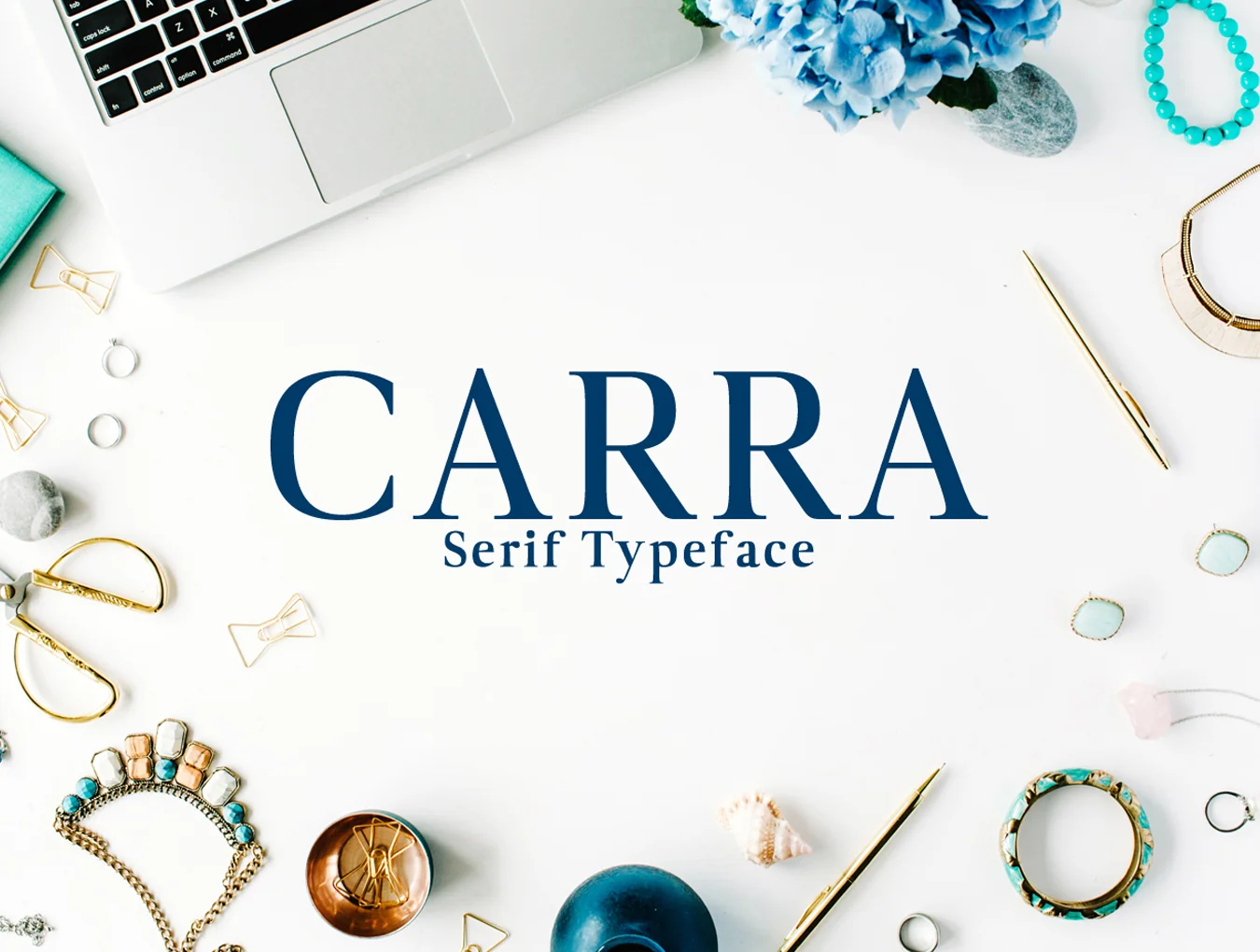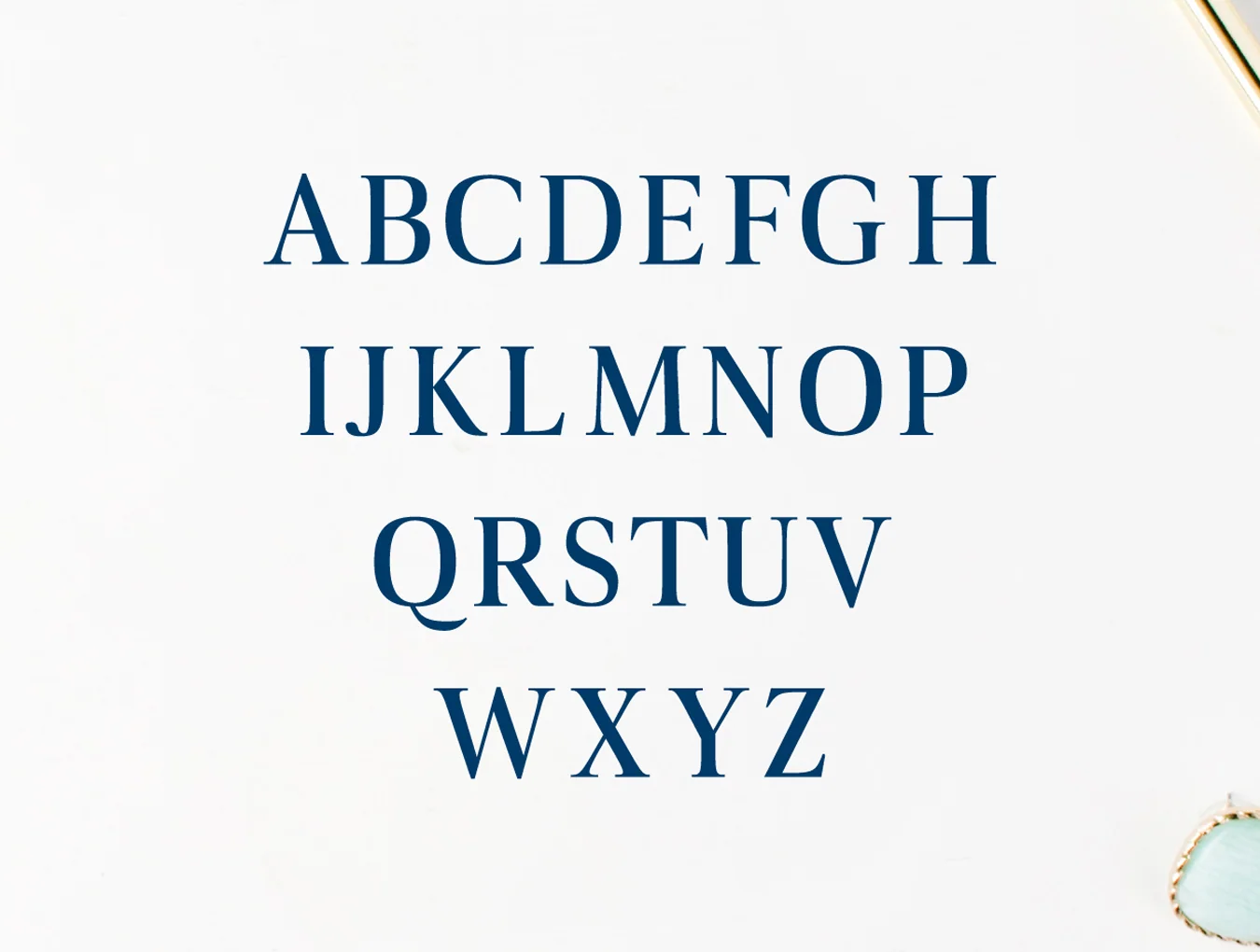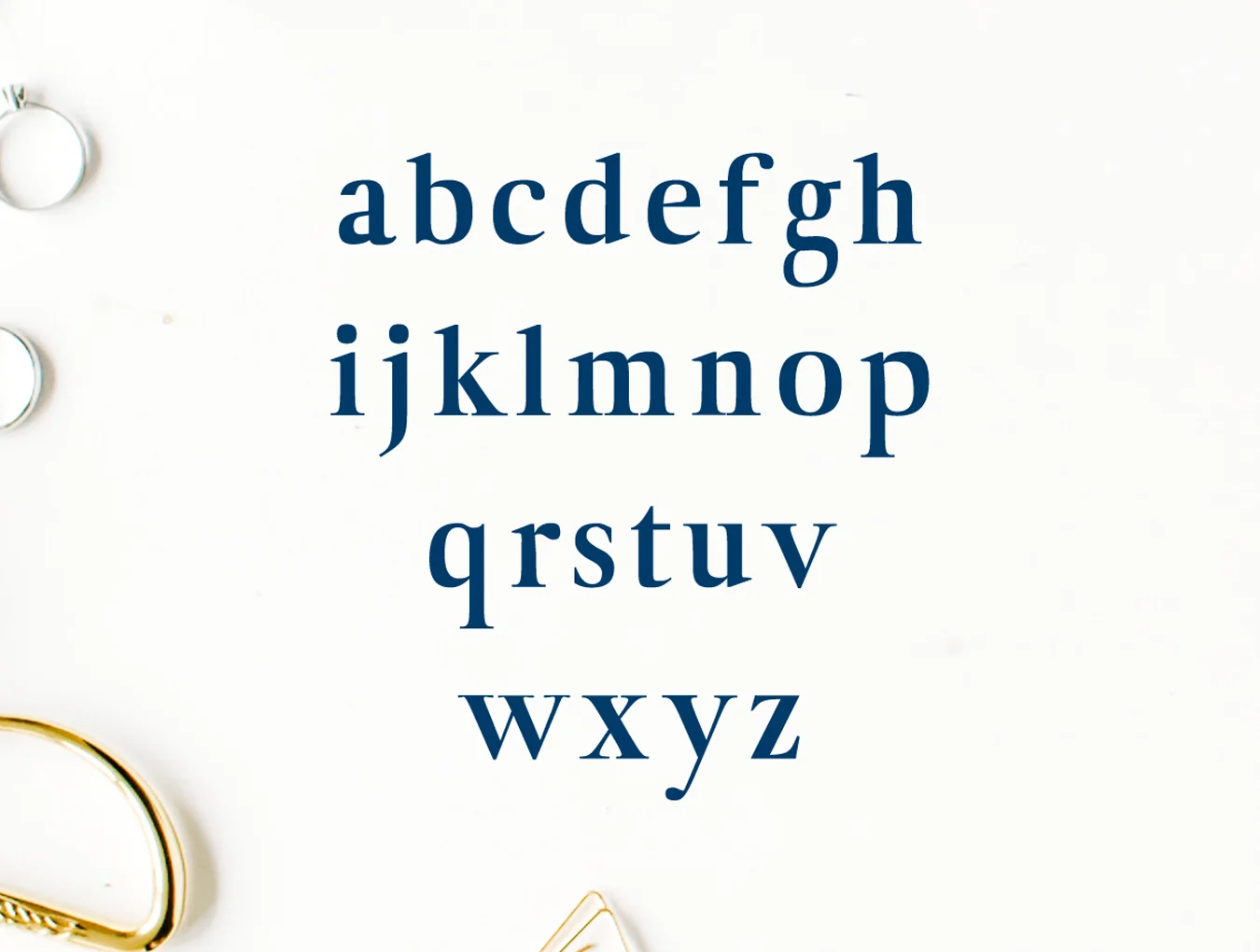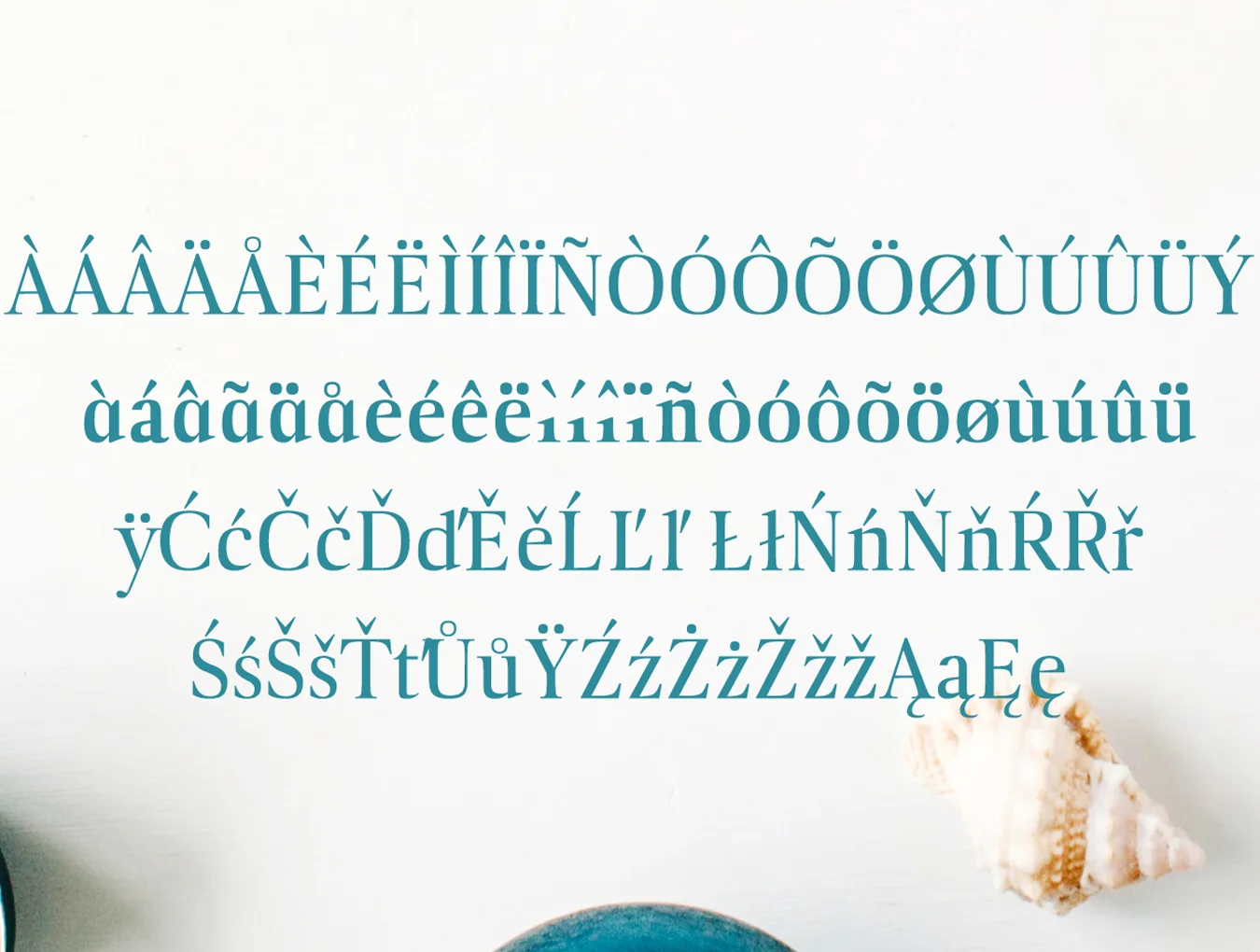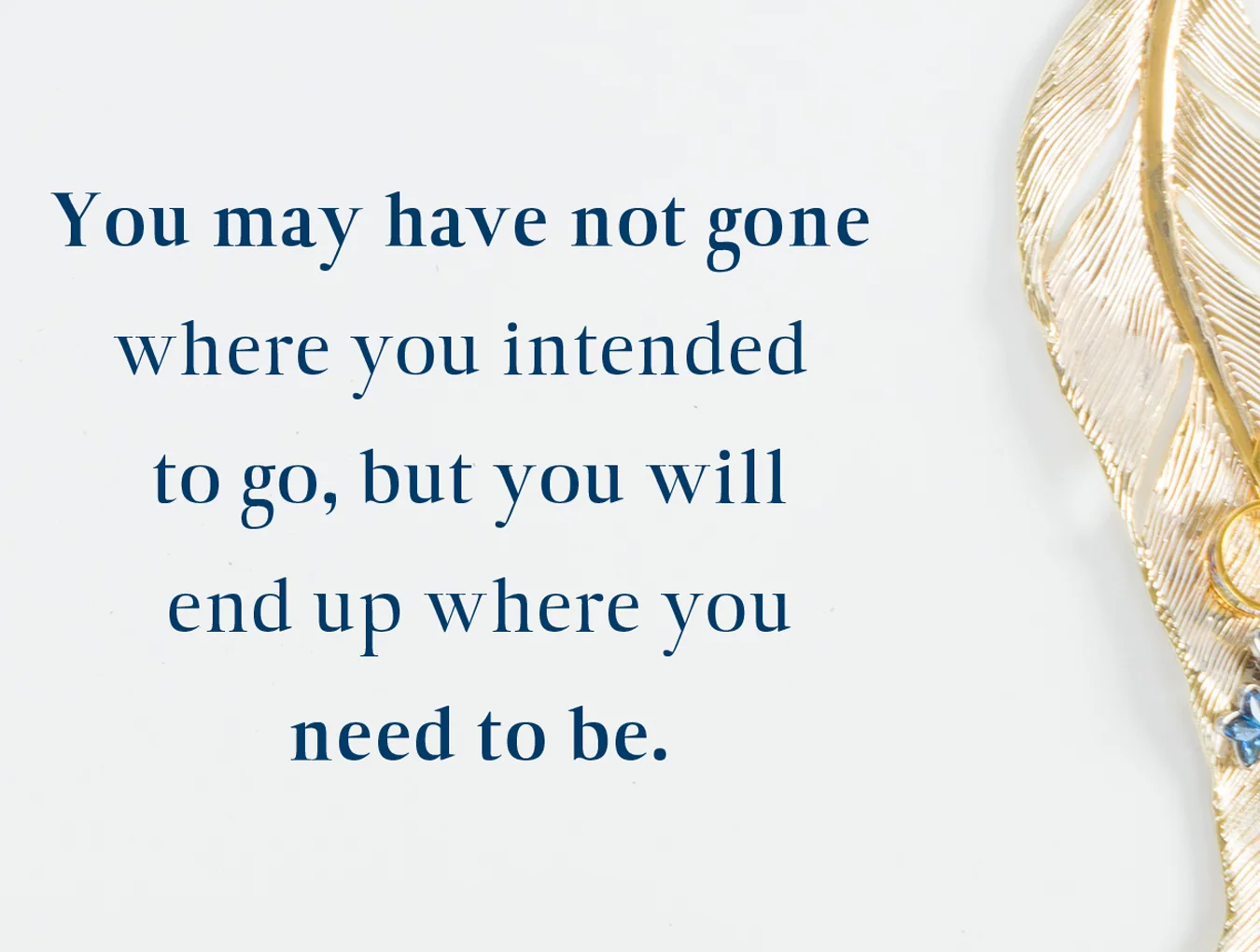
Carra Serif Typeface
Serif font style
Set of 249 characters
Standard weight edition
Semi-bold and semi-bold editions
Serif font style
Set of 249 characters
Standard weight edition
Semi-bold and semi-bold editions
Carra Serif Typeface is a sleek, minimalist serif font family with 3 weights and a distinctive modern style. Ideal for elegant logos, headings, websites, and branding, it shines in all caps with generous spacing for a refined feel, or in mixed case for a timeless appearance.